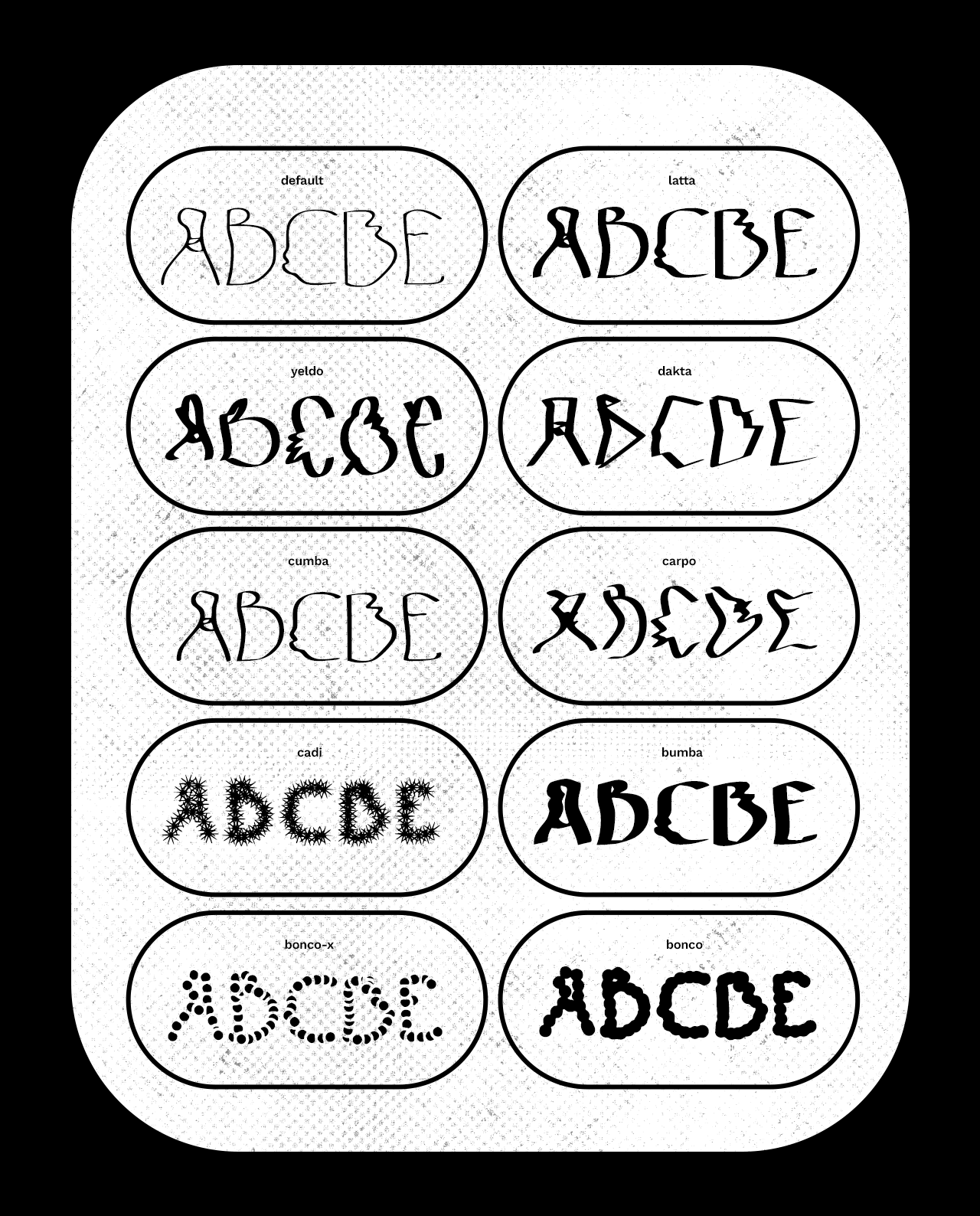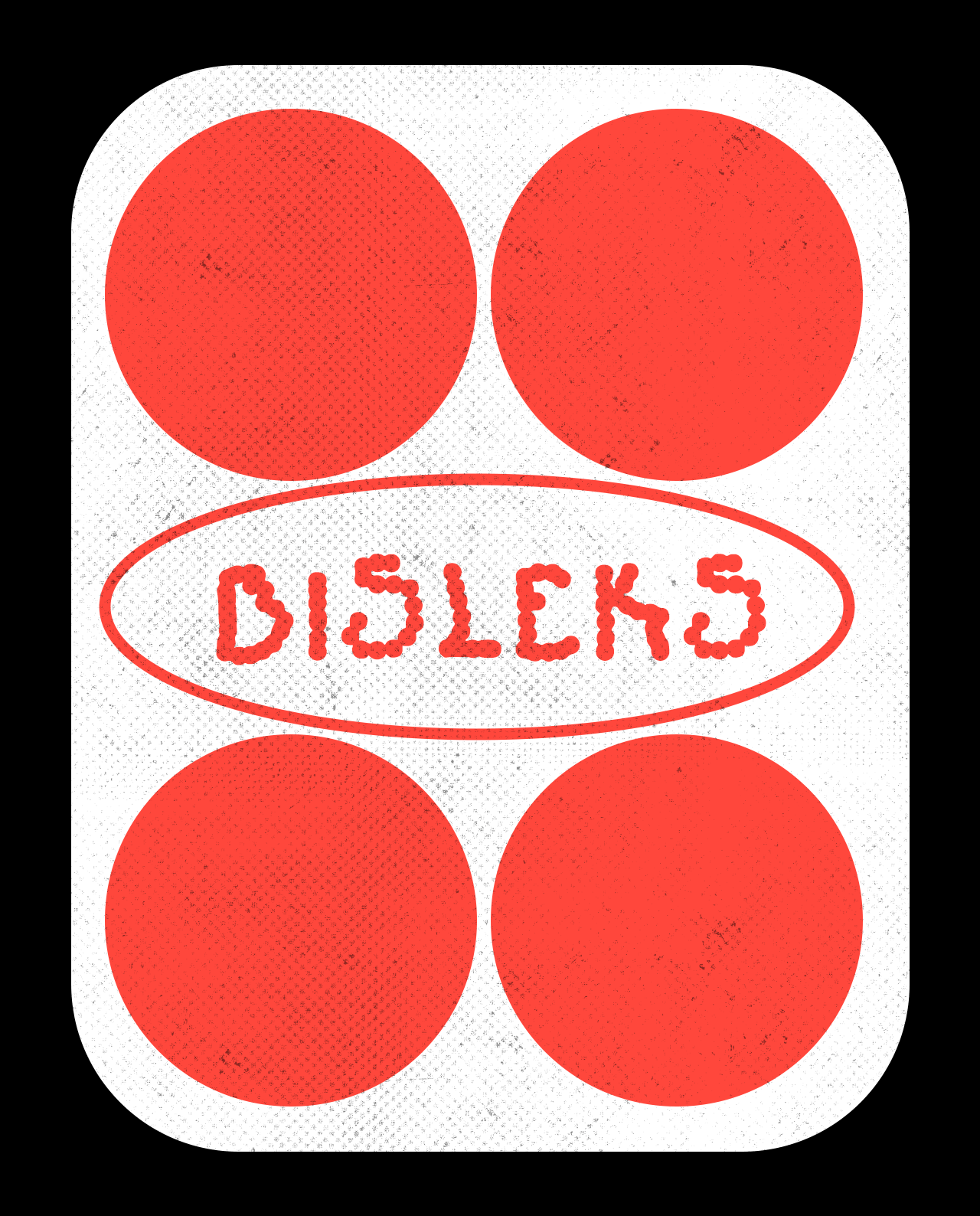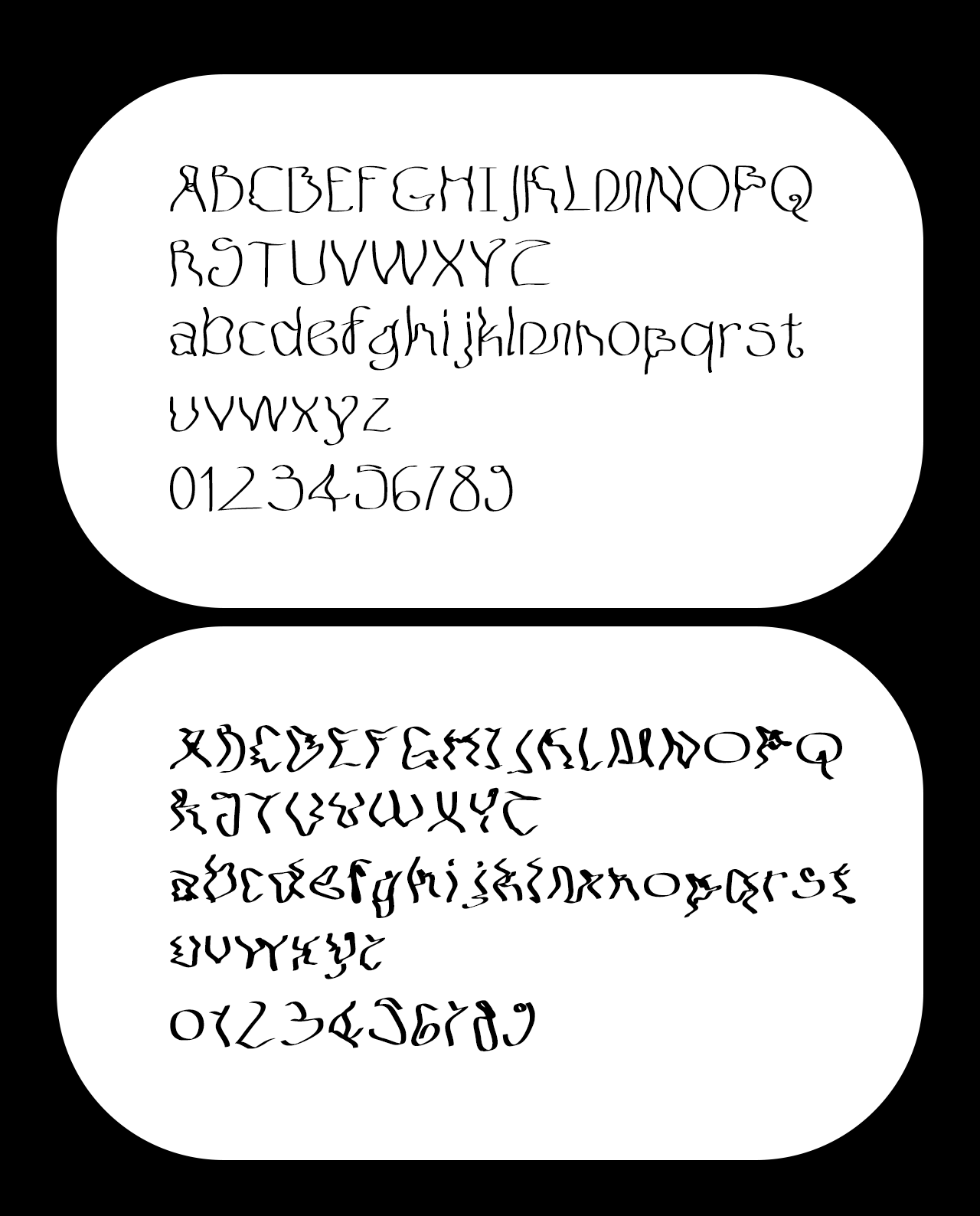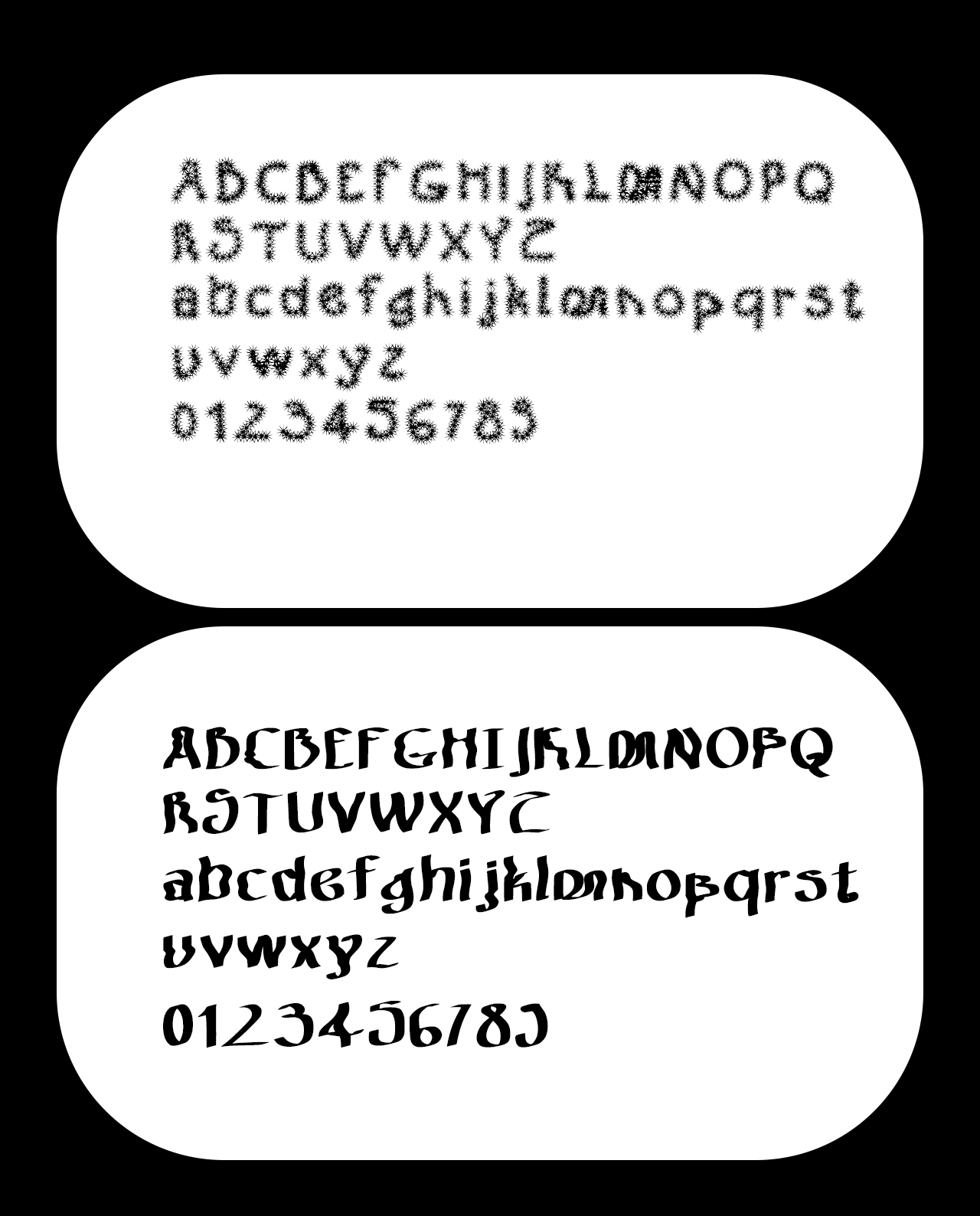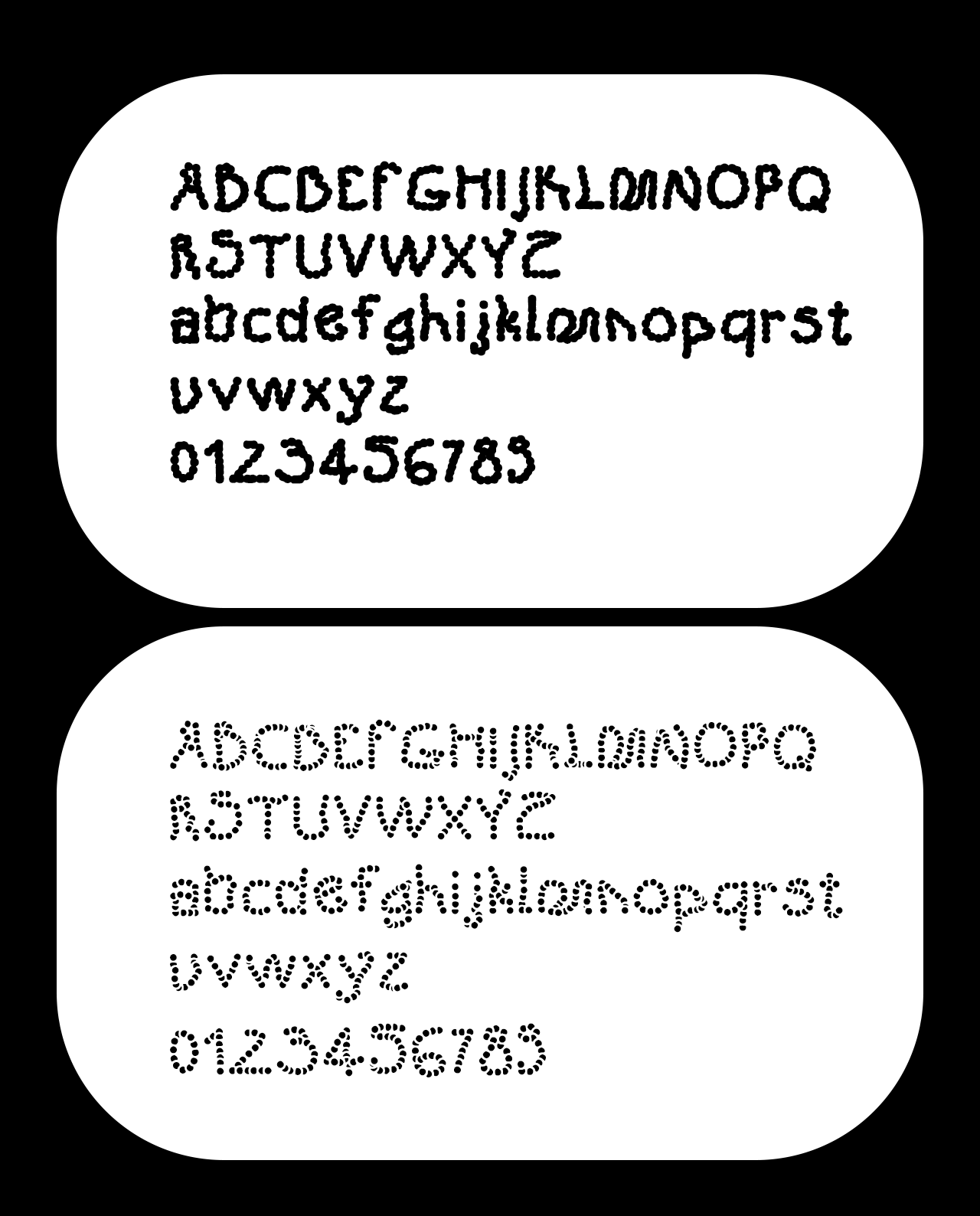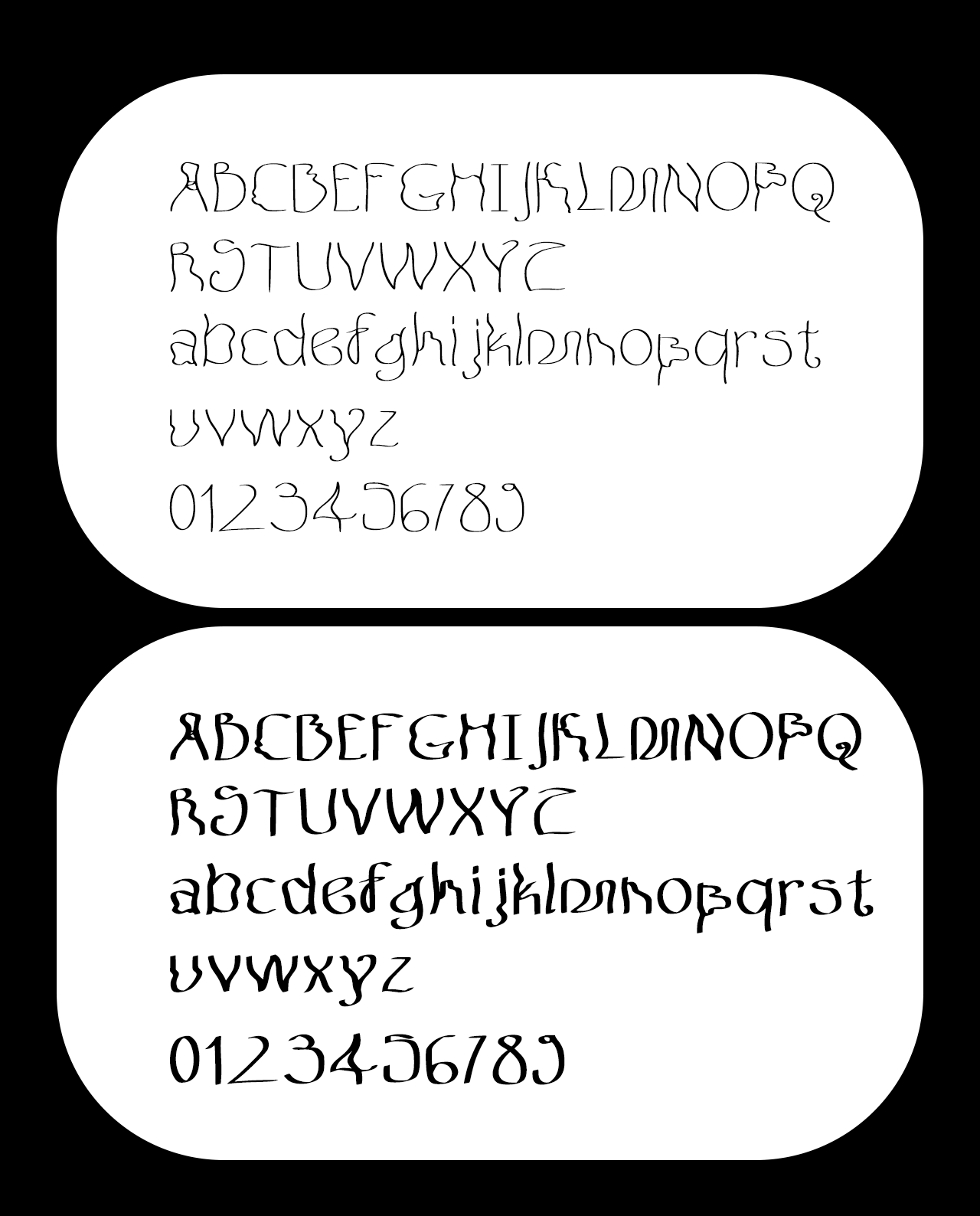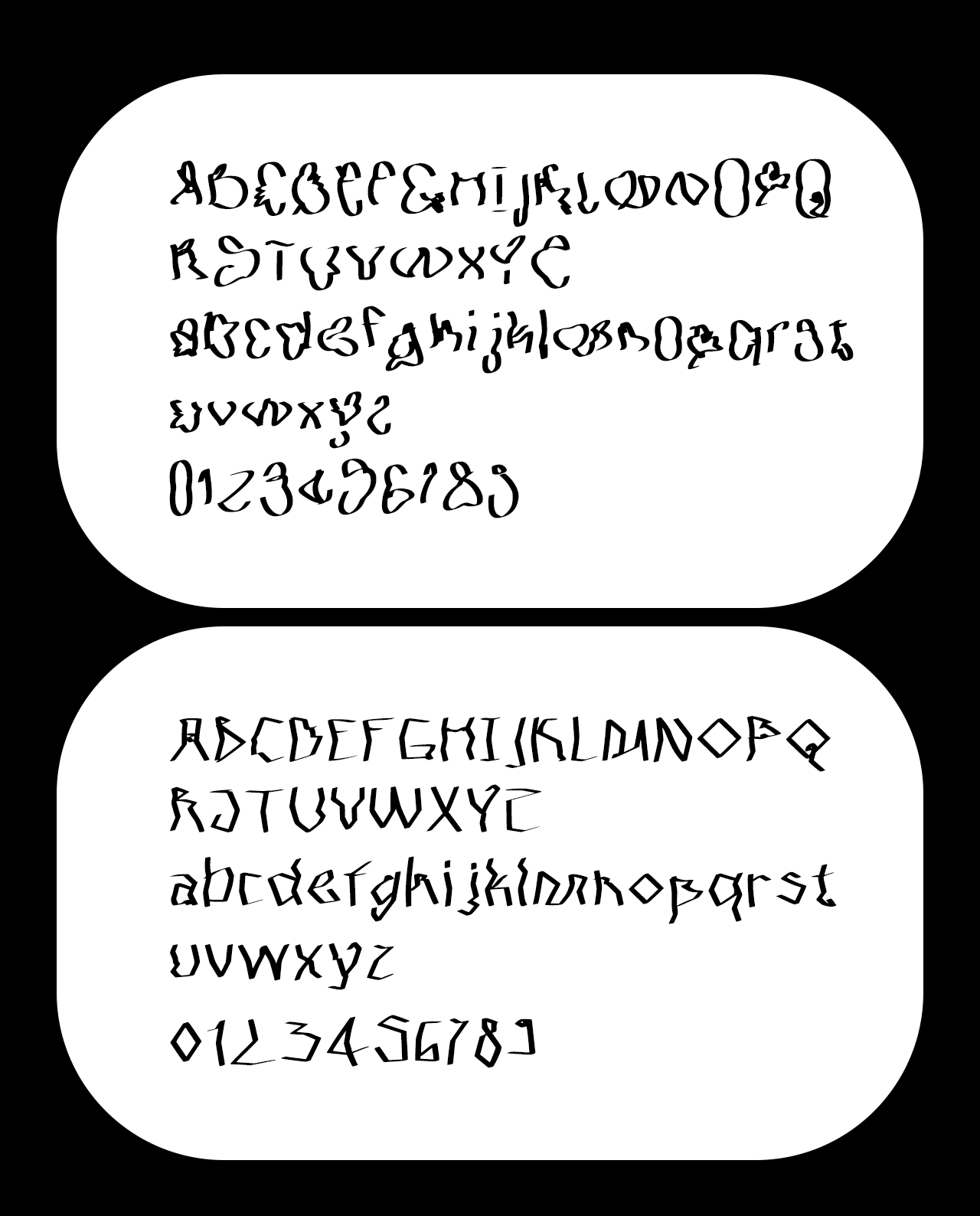
Font: Disleks
Greetings from Disleks font family! Somehow inspired by dyslexia. The Font Disleks family has 10 members: default, latta, yeldo, dakta, cumba, carpo, cadi, bumba, bonco-x, bonco and 70 glyphs